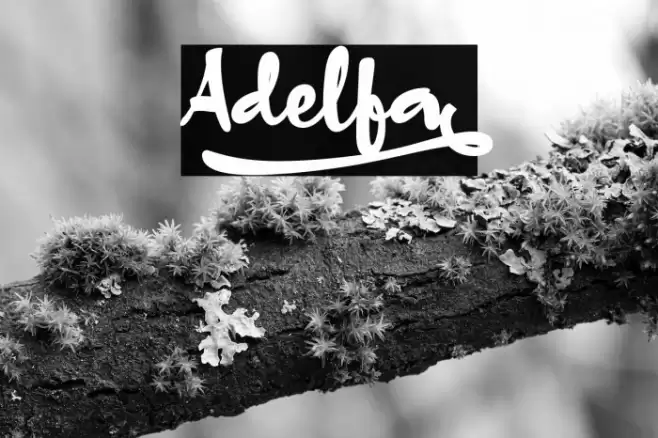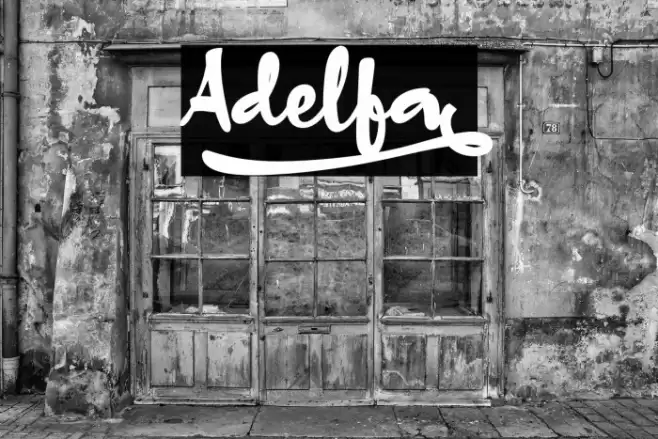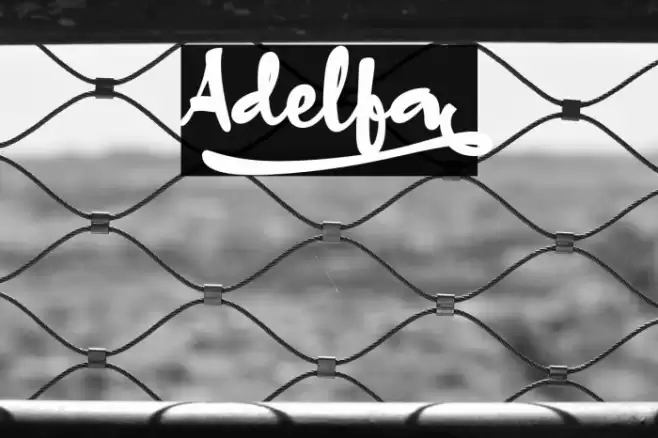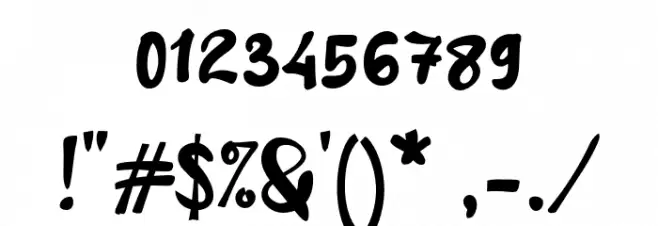
Adelfa_ Font
Adelfa_ Description
This font features a bold and expressive script style with a handwritten appearance. The uppercase letters are characterized by their flowing, connected strokes, giving a sense of movement and fluidity. The lowercase letters maintain this dynamic quality, with some letters extending below the baseline, adding to the casual and artistic feel. The numerals are consistent with the overall style, offering a playful yet legible look. Special characters are well-integrated, maintaining the font's cohesive aesthetic. This font is ideal for projects that require a personal touch or a creative flair.
A bold, expressive script font with a handwritten, artistic style from Uncategorized fonts.
- Proposed Projects: Ideal for invitations, greeting cards, branding, and creative posters.
- Use Case: Logos, Headlines, Creative projects